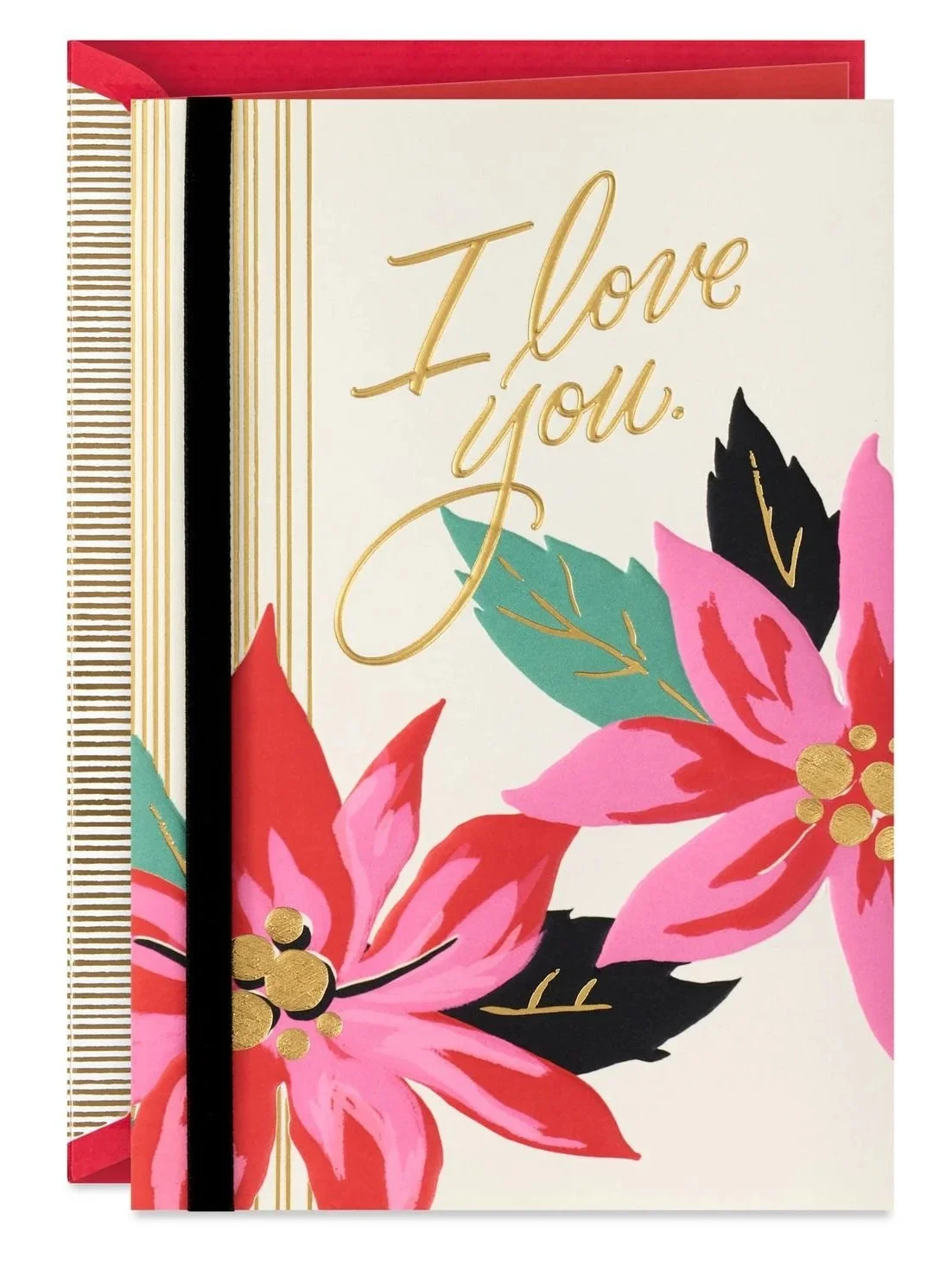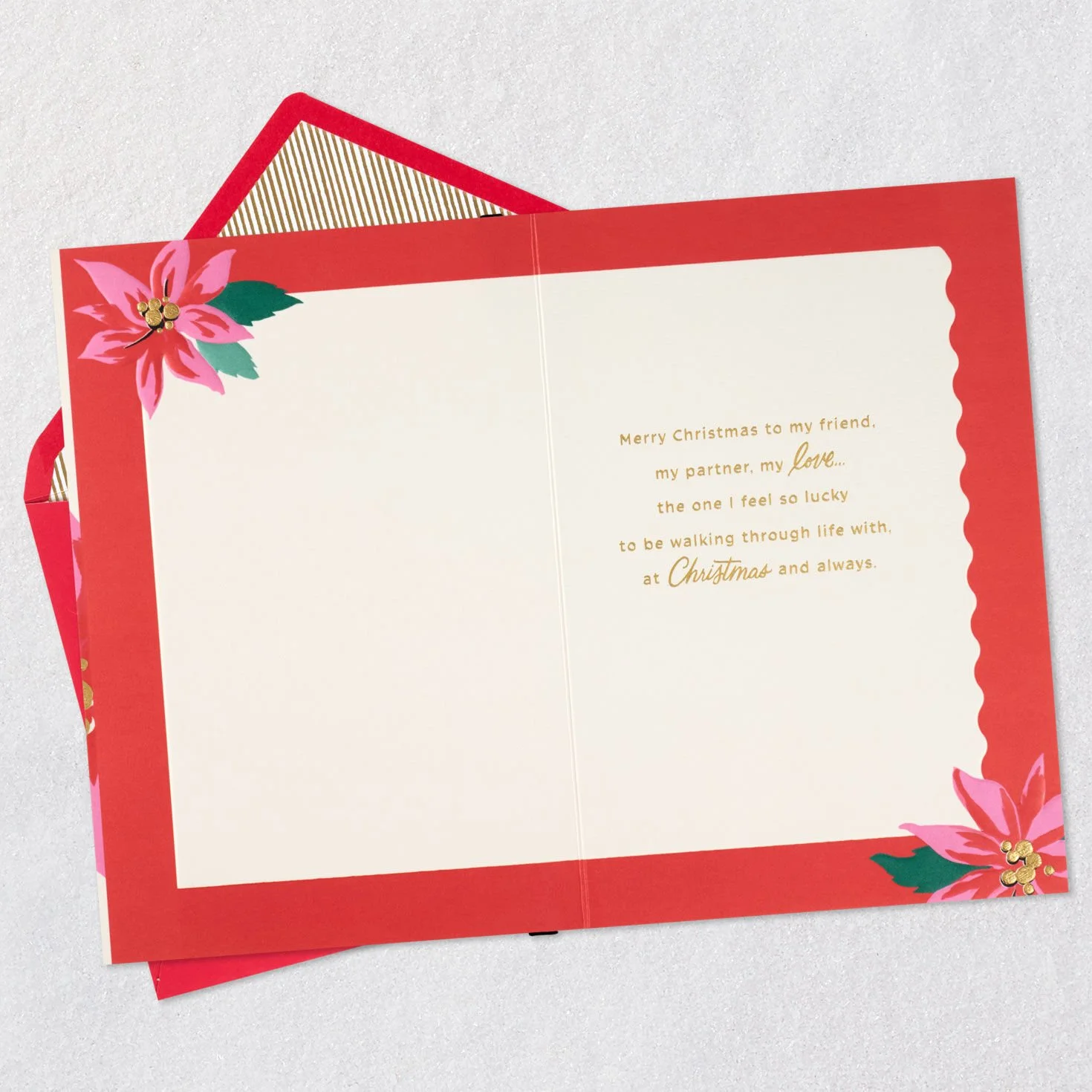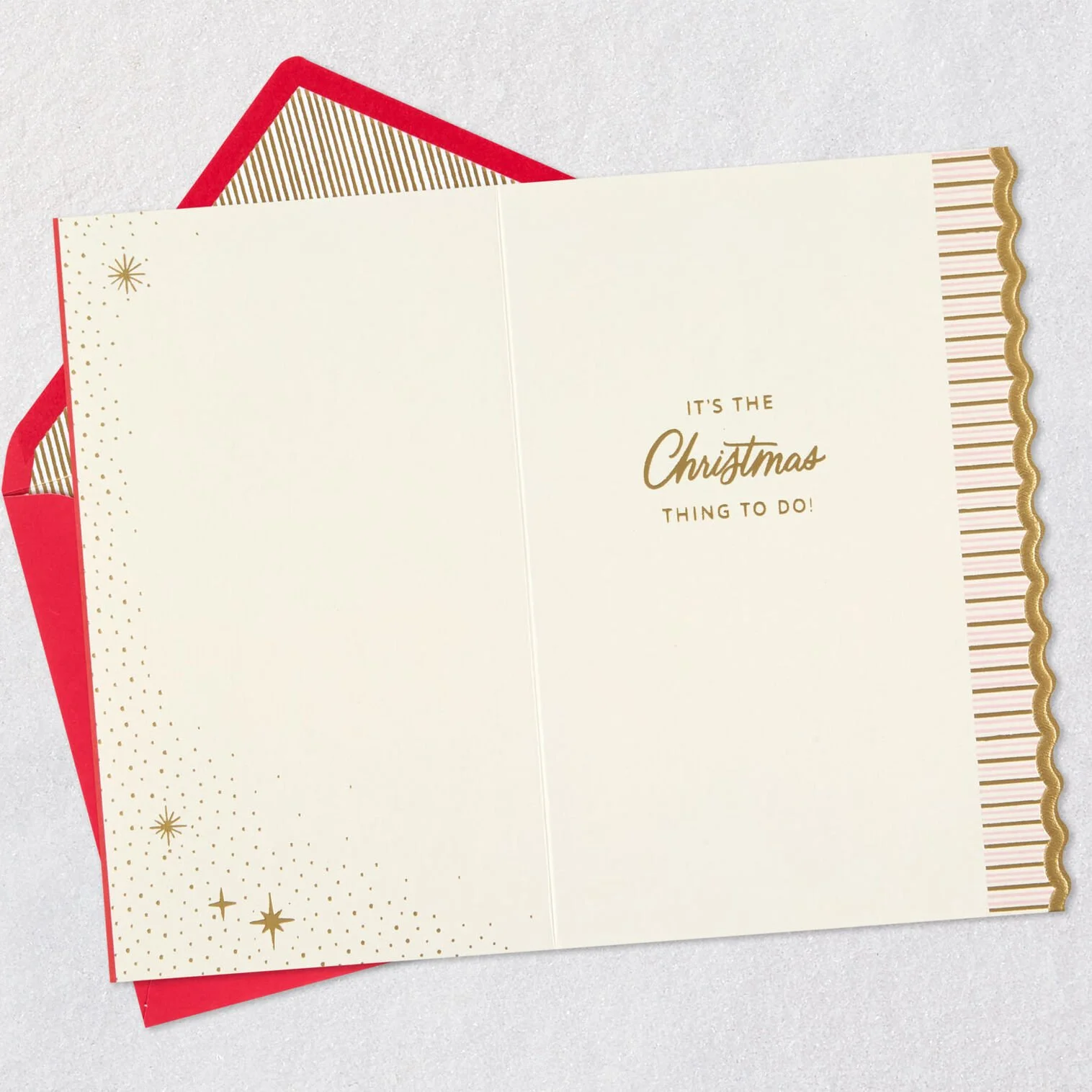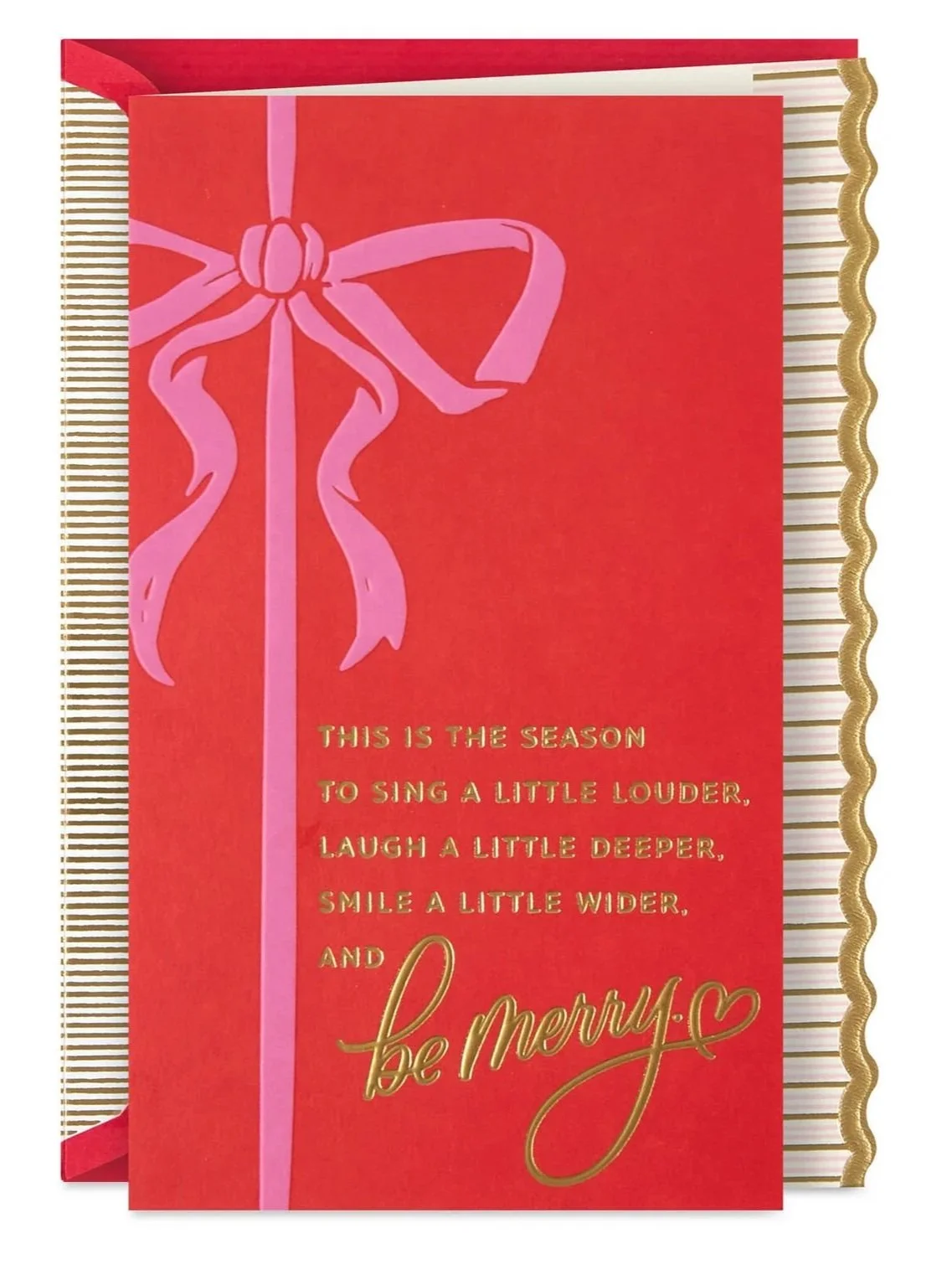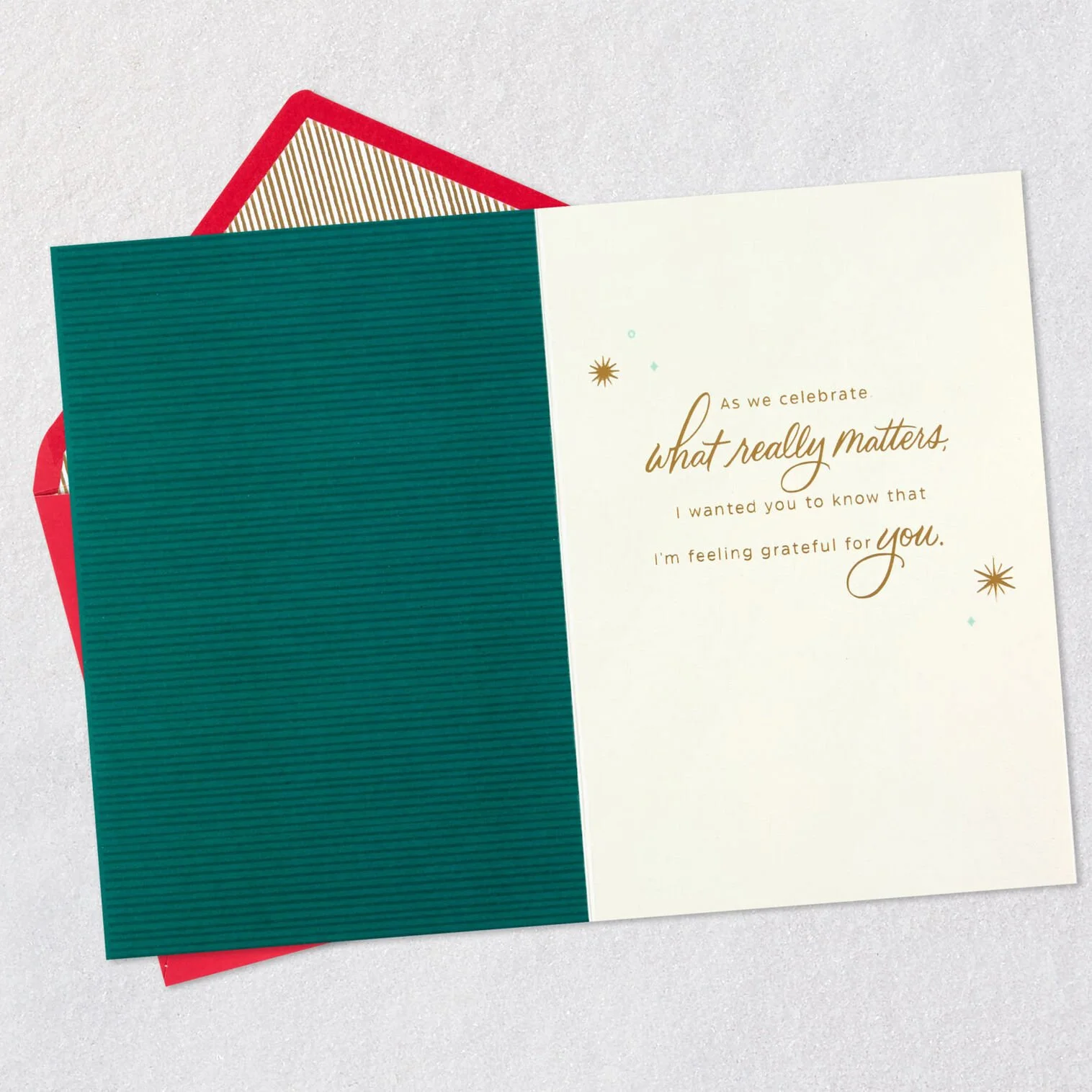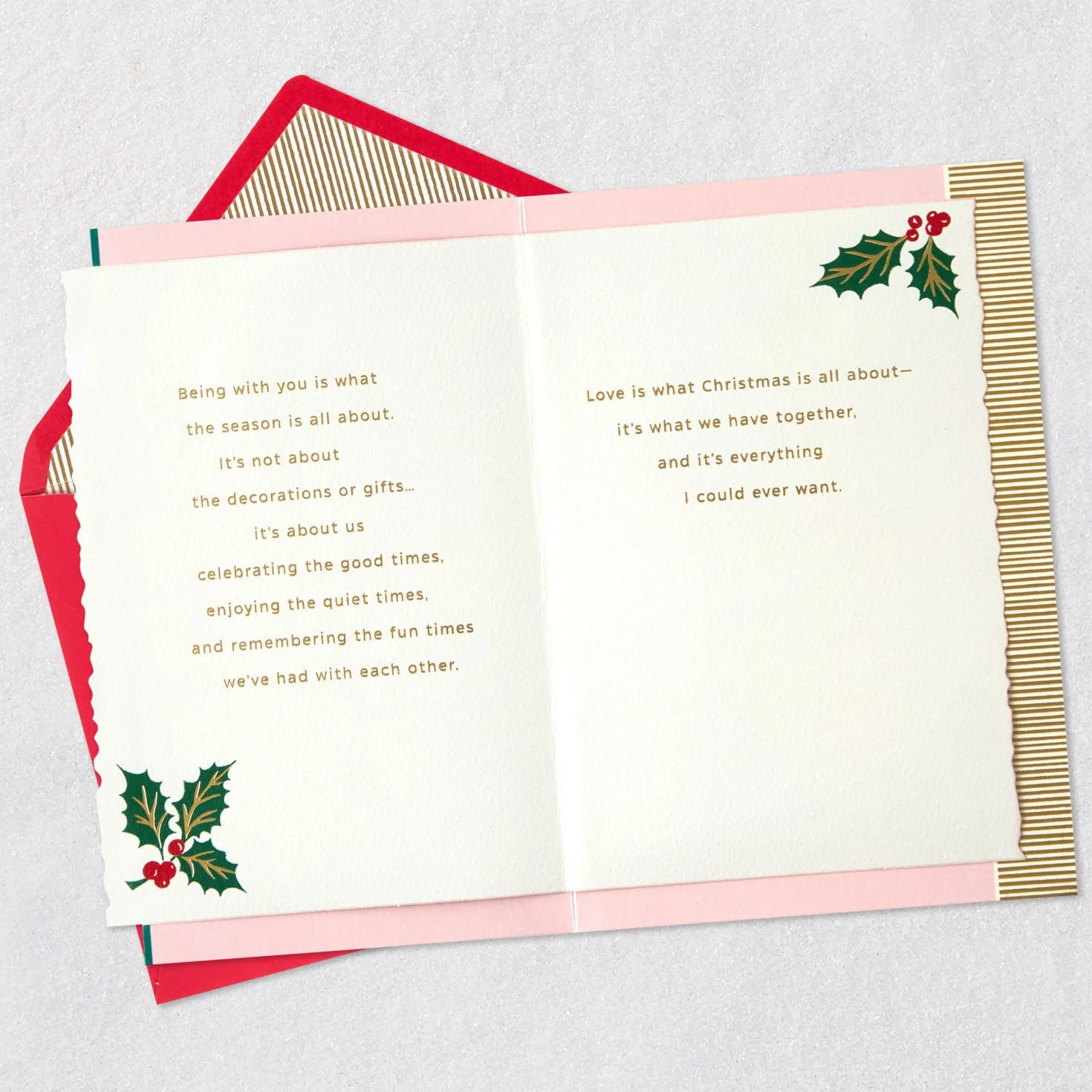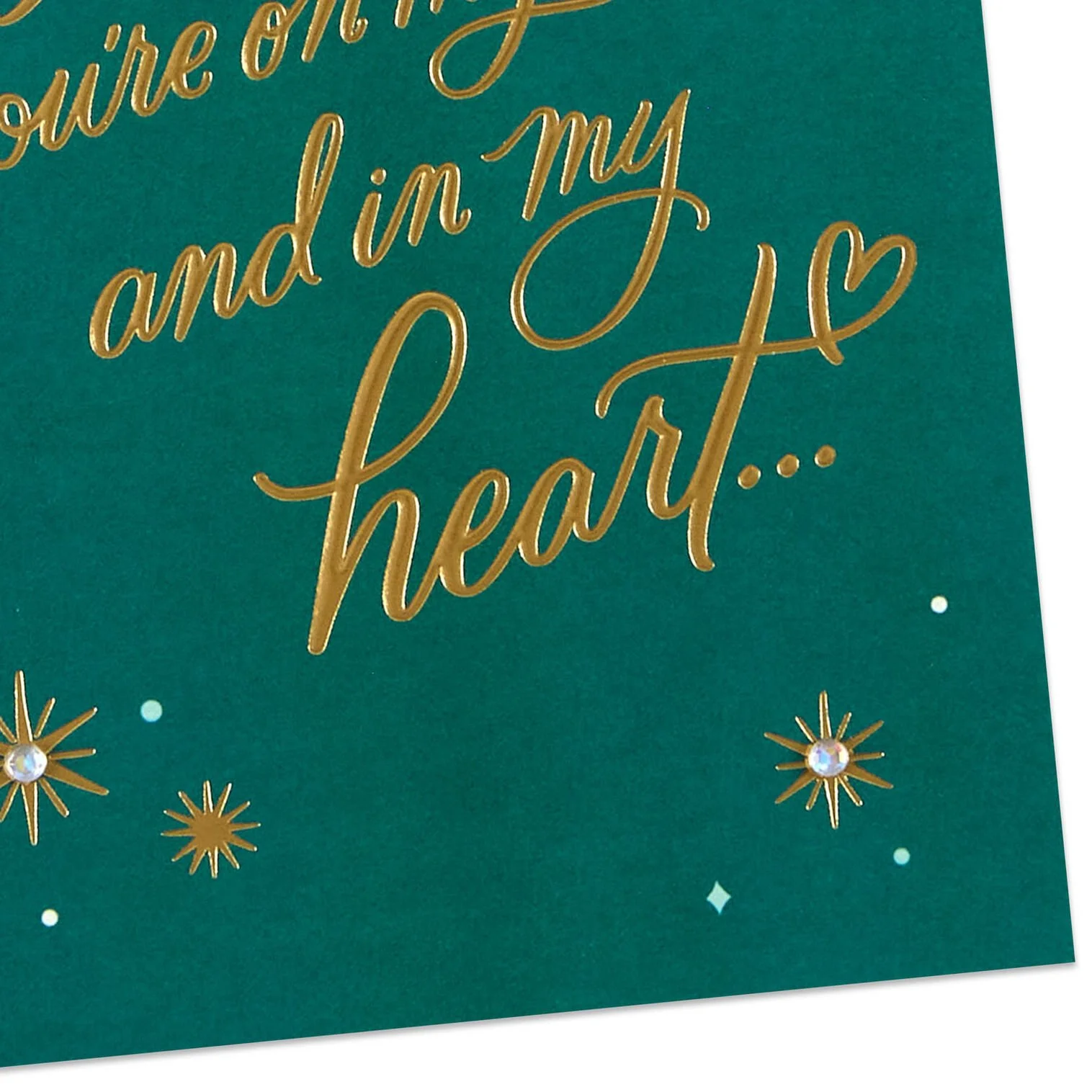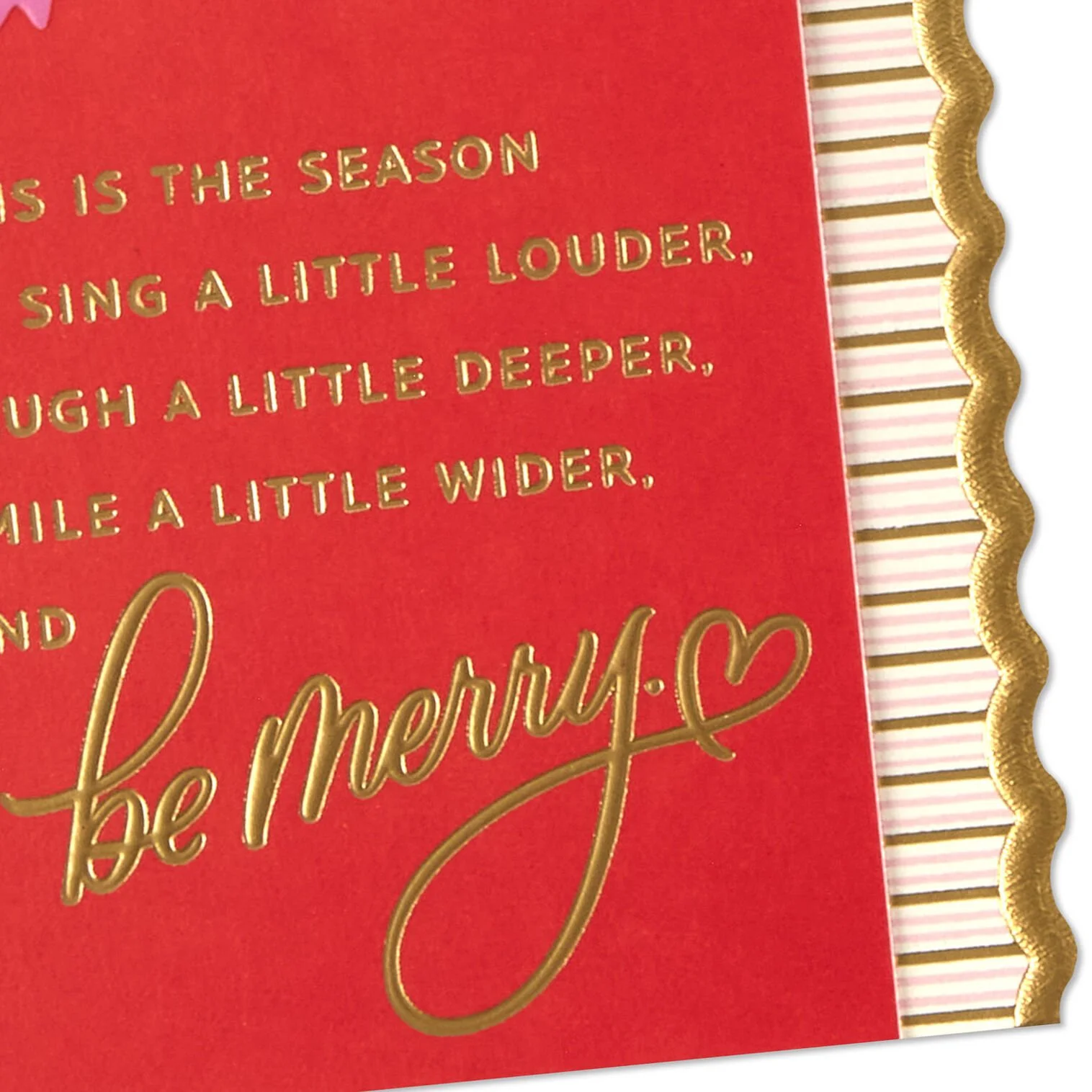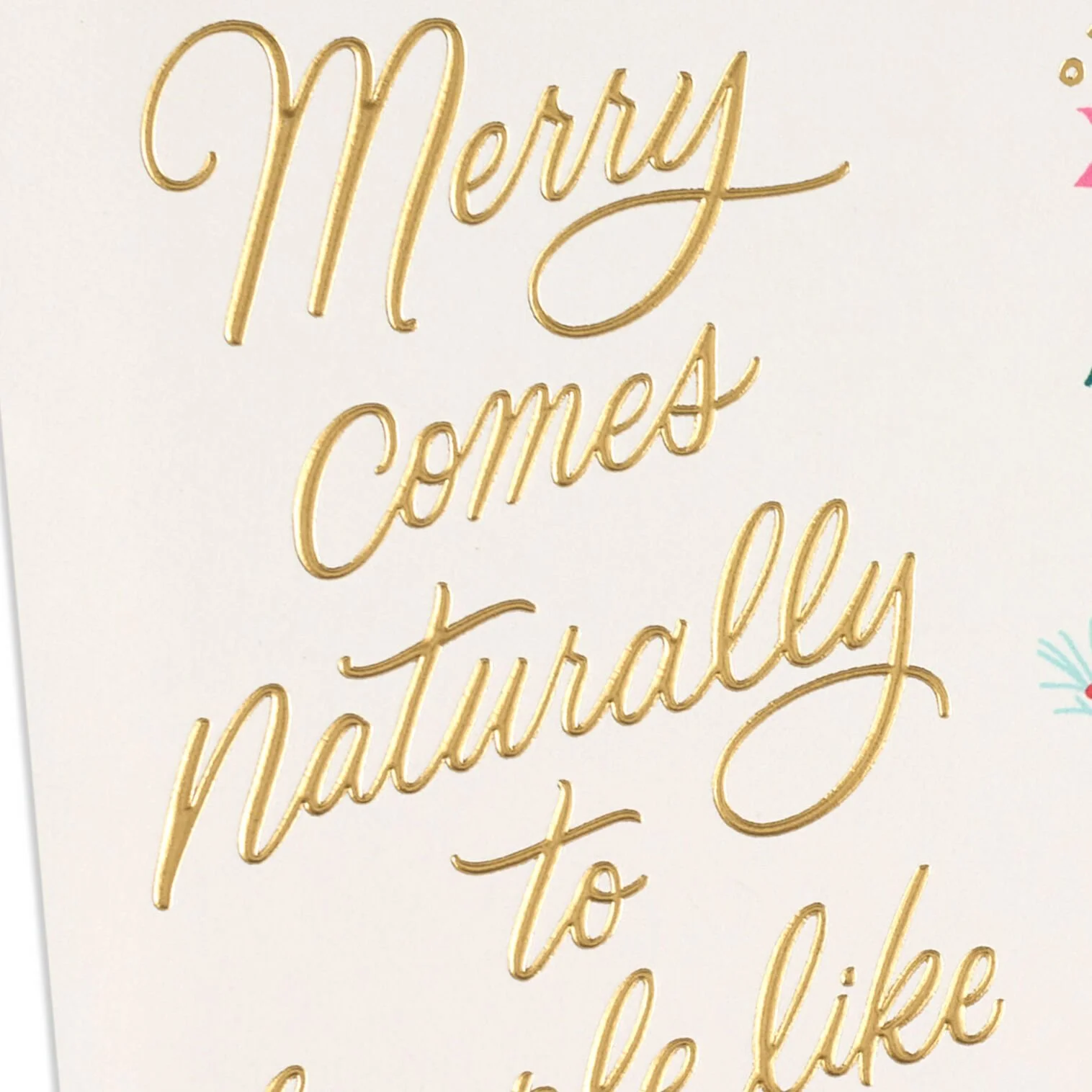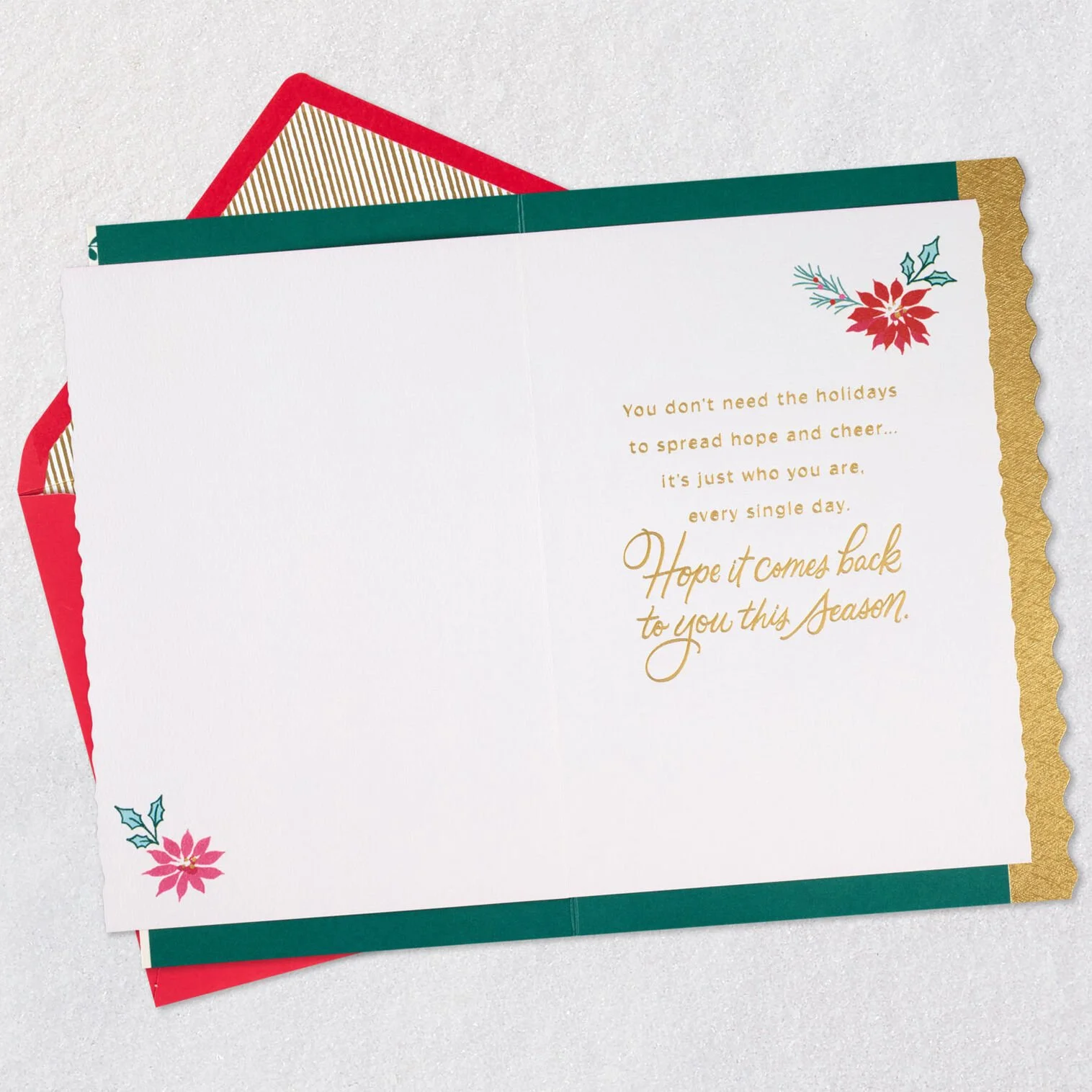
Lacey Chabert Holiday Greetings
I’m thrilled to share lettering I created for the greeting cards that accompany the Lacey Chabert Collection. All these cards turned out beautifully, combining high process, lots of details and Hallmark archival assets. In a few days I’ll share the logo and a bit more about this very special collection!
Lettering for Hallmark Honeycomb Angel
This year Hallmark released a series of STUNNING honeycomb cards for Christmas! I was lucky to get to create the mono-weight script lettering featured on each card and I will be sharing one each day this week. I have the whole set out at my house and I can’t wait to reuse them year after year. I’m putting this angel one in the mail to Dale’s grandmother this week!